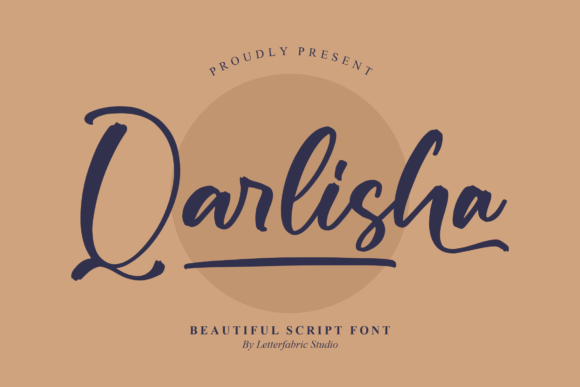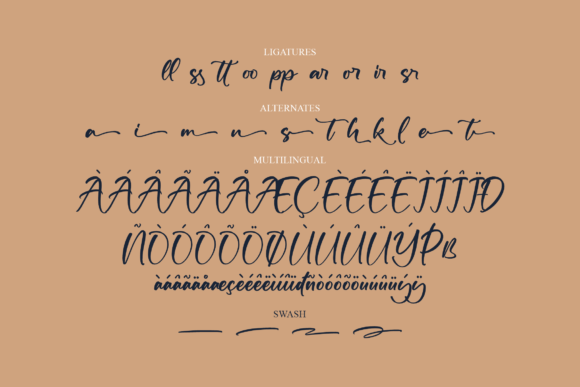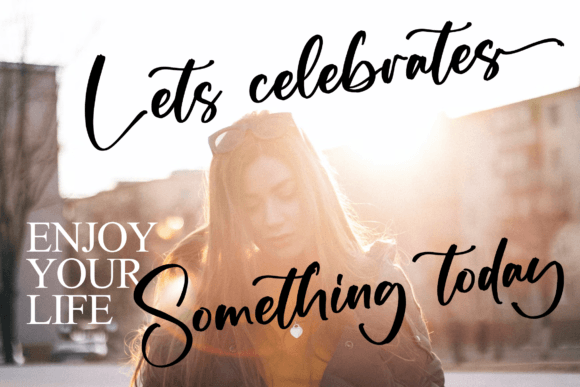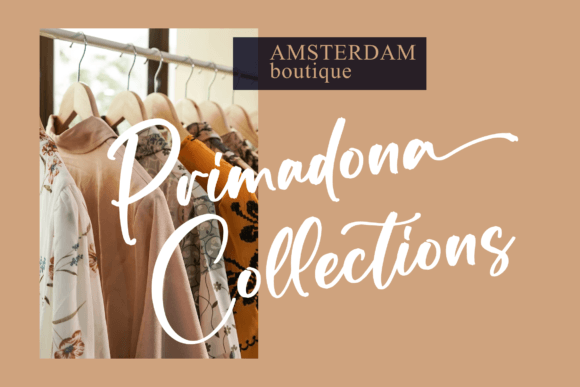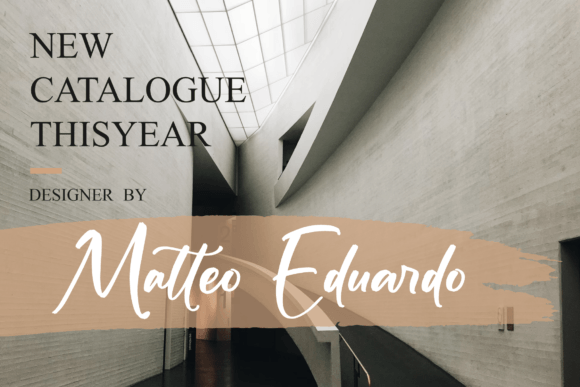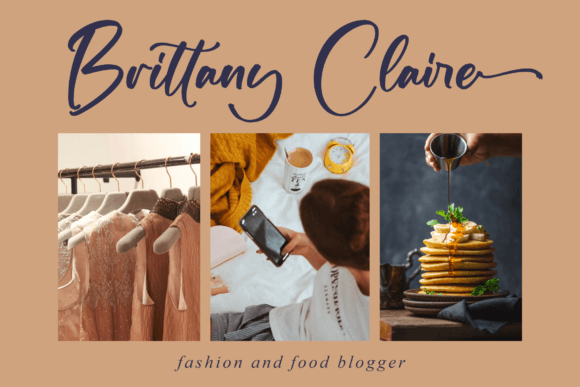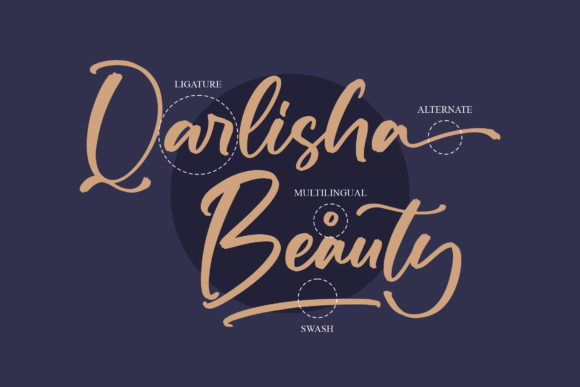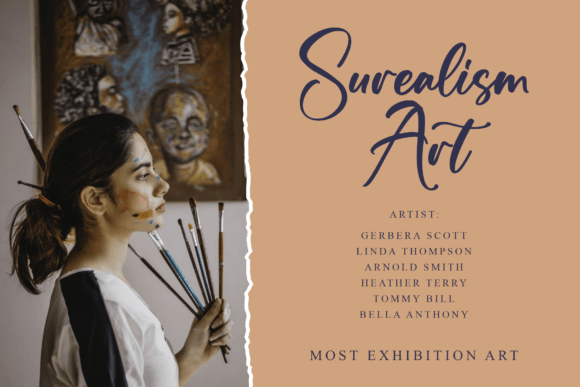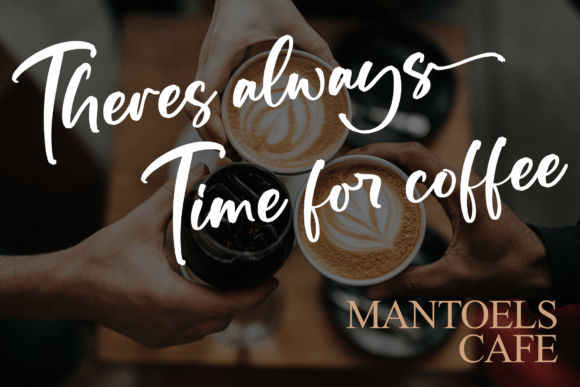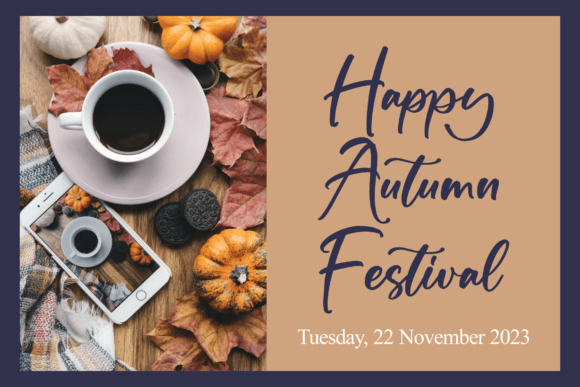
Qarlisha Font
About Qarlisha Font
“Qarlisha” is a captivating calligraphy typeface that exudes romance and sweetness. With characters that appear to dance along the baseline, this font brings a sense of grace and elegance to your design projects. It possesses the unique ability to infuse a touch of luxury into any creative endeavor.
The charm of “Qarlisha” lies in its ability to convey a sense of sophistication and romance. Each character is delicately crafted, and the dancing baseline adds an element of fluidity and grace, making it ideal for projects where you want to evoke a romantic and luxurious atmosphere. Imagine using “Qarlisha” for a wedding invitation, where the font itself becomes a symbol of love and opulence.
For branding, product packaging, quotes, greeting cards, and a variety of design applications, “Qarlisha” adds a touch of elegance and beauty that elevates your content. It possesses a timeless quality that can make your projects feel truly special.
Furthermore, the fact that “Qarlisha” is PUA encoded means that you can easily access its amazing glyphs and swashes, enhancing your creative possibilities. This feature provides you with the tools to create unique and personalized designs effortlessly.
In summary, “Qarlisha” is more than just a font; it’s a design asset that brings a sense of romance and luxury to your creative work. Its calligraphy style and dancing baseline are suitable for a variety of applications, and its ability to convey sophistication and opulence sets it apart. With “Qarlisha” at your disposal, your design projects will exude a sense of timeless beauty and elegance that leaves a lasting impression.